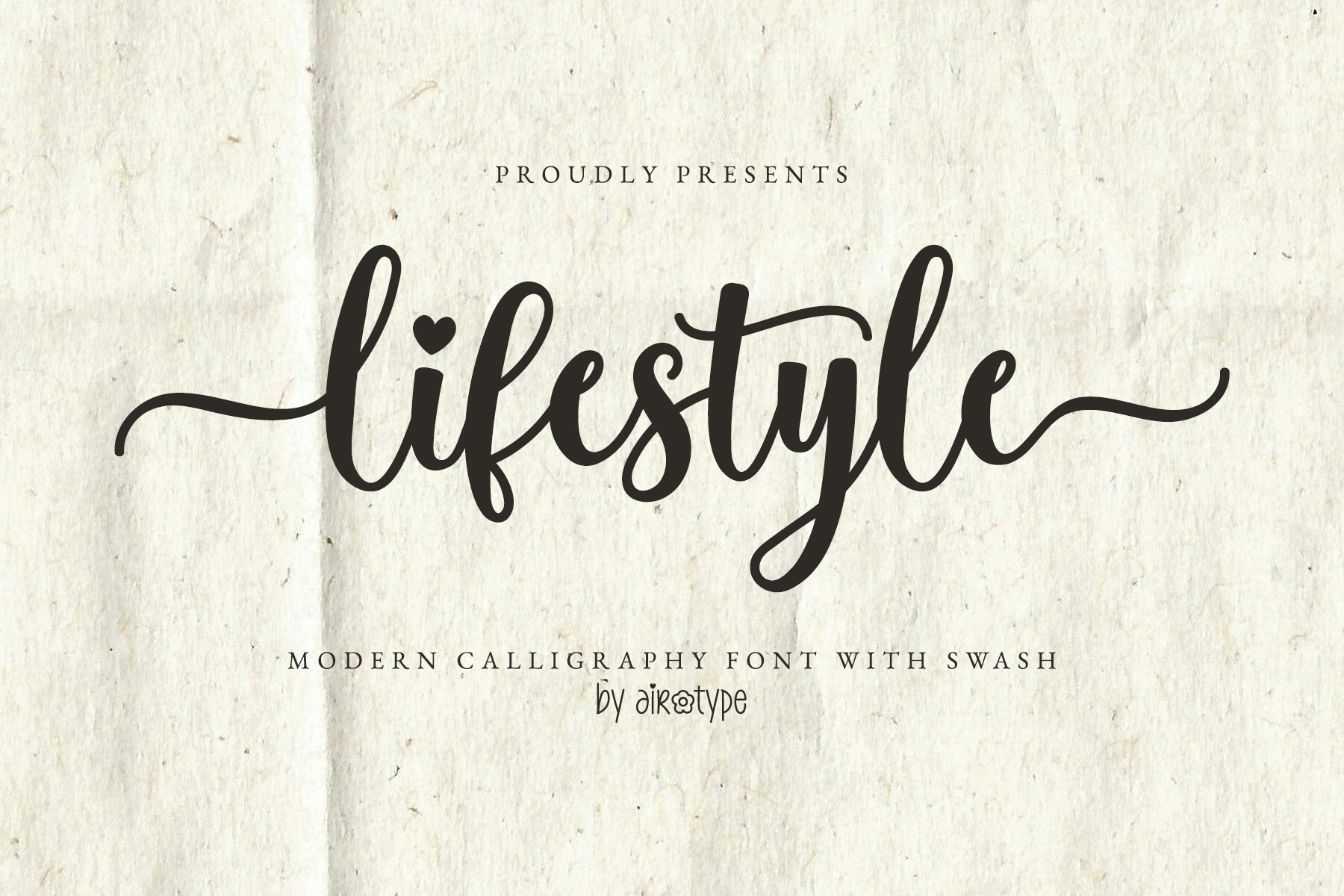
Lifestyle - Tail Swash Script Font
Lifestyle is modern casual calligraphy font with elegant and luxury looks. Every individual character in this font embodies charming and delightful into the design.
Lifestyle font has lowercase tail swash in front and back to give more elegance and beauty into the design.
Lifestyle is modern beautiful font for design that needs luxury vibes, such as wedding, invitation, stickers, sublimation, cards, birthday, t-shirt design, farmhouse design, and others.